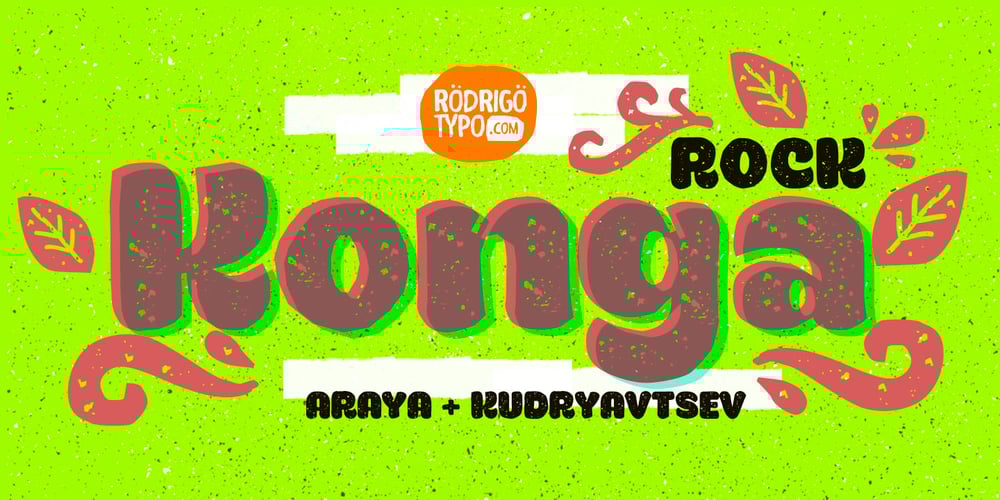
Konga Rock Font Family was designed by Rodrigo Araya Salas and published by RodrigoTypo. Konga Rock contains 2 styles and family package options. It is a new style of Konga Pro, now more rough and ornaments.